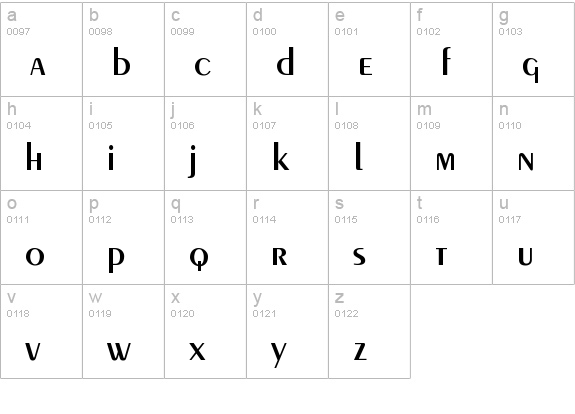
Pare Normal is the standard, neutral variant in the Pare typeface family \xE2\x80\x94 well suited to general body text, paragraphs, and standard typographic work.
Pare Normal is an exquisite font that effortlessly combines elegance and modernity. With its sleek lines and sophisticated curves, this font is perfect for adding a touch of finesse to any design project. Whether you're creating a logo, designing a website, or crafting eye-catching headlines, Pare Normal will elevate your work to new heights. What sets Pare Normal apart is not only its stunning aesthetic but also its versatility. This font is suitable for a wide range of applications, from fashion and beauty to technology and corporate branding. Its clean and legible letterforms make it easily readable in both small and large sizes, ensuring that your message is conveyed with clarity and impact. One of the best things about Pare Normal is that it is freely available to download at FontsMarket.com. This means that you can enjoy the beauty and functionality of this font without any cost. Whether you're a professional designer or a hobbyist, you can access Pare Normal and take your creative projects to the next level. Don't miss out on the opportunity to enhance your designs with the elegance and versatility of Pare Normal. Download it today from FontsMarket.com and unleash your creativity with this stunning font.